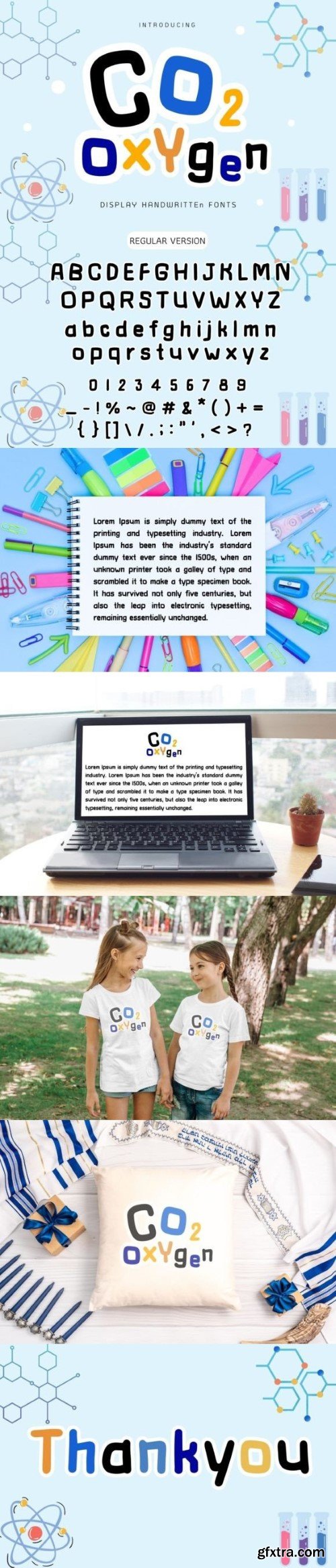
二氧化碳氧气字体
Co2 Oxygen is a cute display font with groovy and fun vibes. This font is a special font for the science theme.
This font is the adorable font for a design that needs a cute , such as science design, kids design, birthday invitation, summer design, t-shirt design, crafting, sticker, sublimation, and many more.